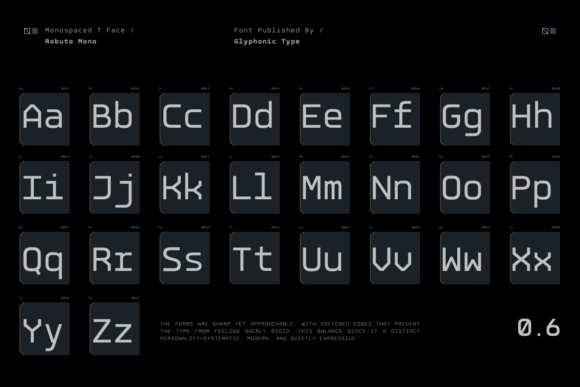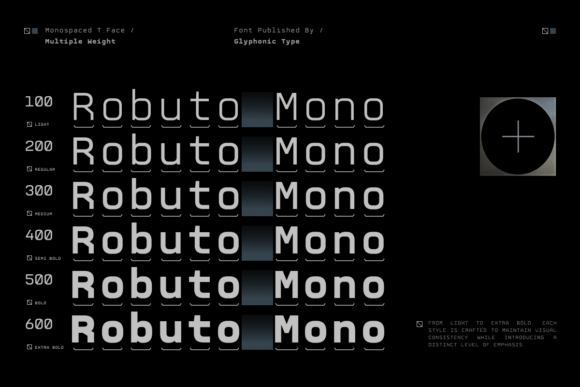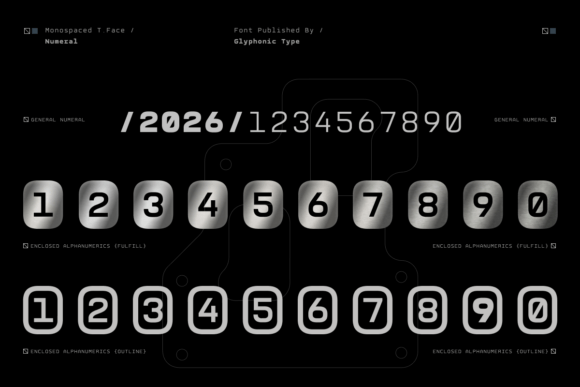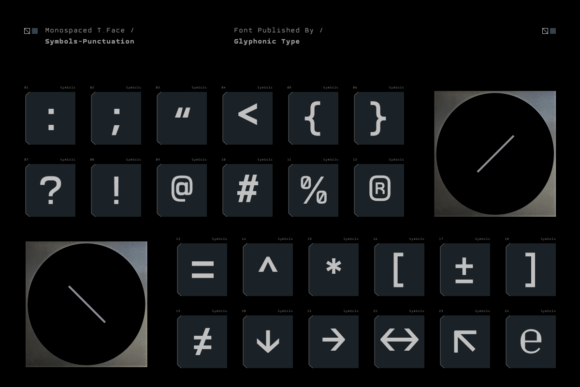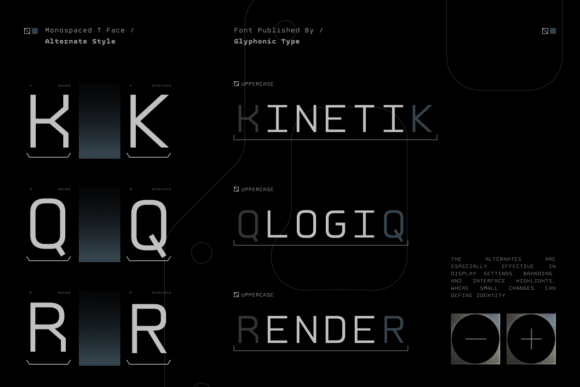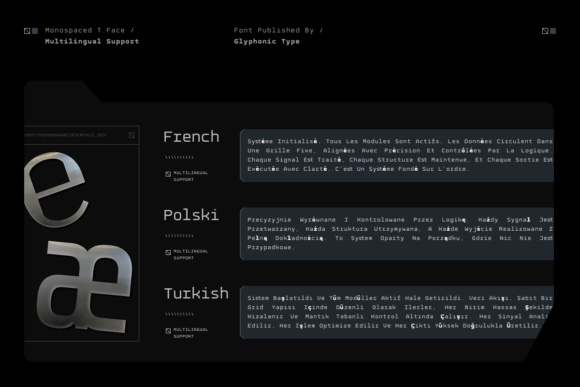
Introduction to Robuto Mono Font Font
Fonts play a crucial role in design, and the Robuto Mono Font font is a typeface that brings both character and versatility to any project. Whether you’re working on a branding project, a website, or a print design, the Robuto Mono Font font offers a unique style that can elevate your work.
Robuto Mono is a contemporary monospaced typeface designed to combine technical precision with modern elegance.
Built on a structured monospace system and refined geometric proportions, Robuto Mono delivers a clean, futuristic typographic voice that feels sophisticated, balanced, and highly functional As a variable typeface, Robuto Mono offers flexible weight control, allowing designers to create clear hierarchy while maintaining the uniform rhythm that defines a monospaced font.
Key Features of Robuto Mono Font Font
Why Choose Robuto Mono Font Font?
The Robuto Mono Font font is more than just a typeface – it’s a design tool that helps you communicate your message with style and clarity. Its unique character set and versatile design make it suitable for a wide range of applications, from elegant invitations to bold headlines.
With its carefully crafted letterforms and balanced proportions, the Robuto Mono Font font ensures readability and visual appeal across all mediums.
What makes Robuto Mono Font font special?
The Robuto Mono Font font stands out with its unique design, exceptional readability, and versatility across various design applications.